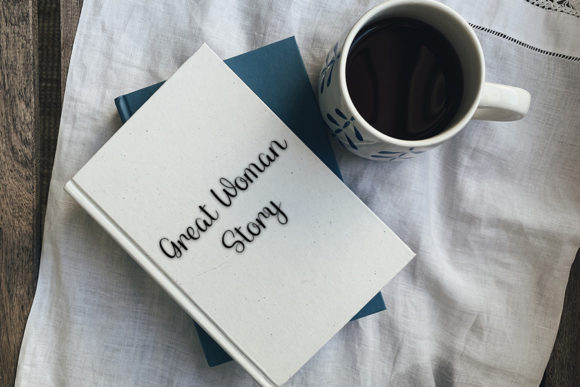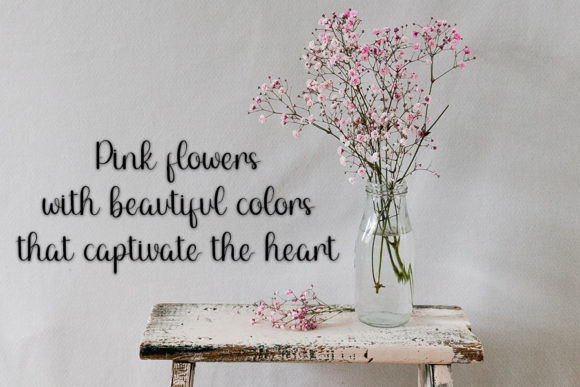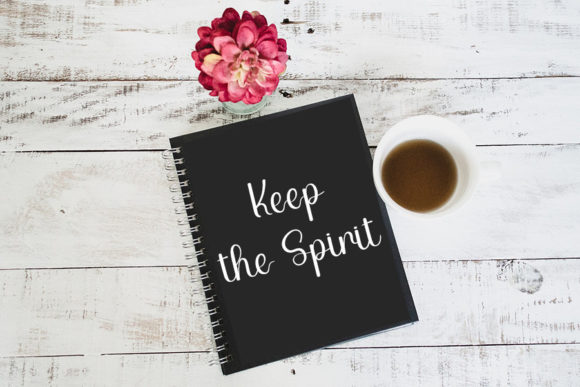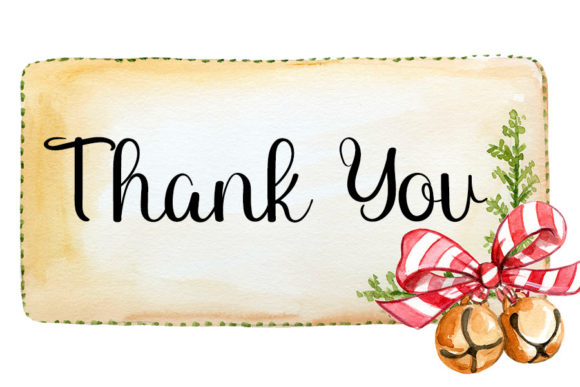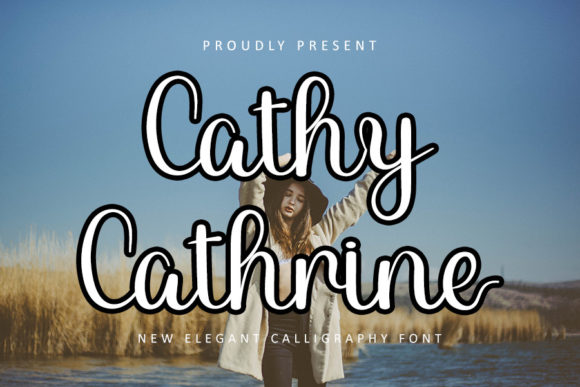
Cathy Catherine Font: Elevate Your Designs with Elegance and Sophistication
In the world of typography, few fonts manage to capture the essence of classic calligraphy while still exuding a modern, stylish vibe. Cathy Catherine, a stunning script calligraphy font, is one such gem that has been making waves in the design community. With its smart atmosphere and impeccable form, Cathy Catherine is the perfect addition to any design project that demands elegance and sophistication.
Inspired by Timeless Calligraphy
Cathy Catherine draws its inspiration from traditional calligraphy, bringing a sense of history and classic beauty to the table. However, unlike conventional calligraphy fonts that can sometimes feel rigid or outdated, Cathy Catherine strikes a perfect balance between classic charm and contemporary flair. This font is not just a nod to the past; it’s a bridge between eras, combining the best of both worlds to create something truly unique.
Balanced and Varied: The Mark of Excellence
One of the standout features of Cathy Catherine is its balanced and varied design. The font boasts a range of characters that are meticulously crafted to ensure harmony and fluidity in any text. Whether you’re working on a branding project, a wedding invitation, or a packaging design, Cathy Catherine’s versatility shines through. Its balanced nature ensures that your text is not only readable but also visually appealing, making it a joy to read and behold.
Enhance Your Projects with Cathy Catherine
So, what makes Cathy Catherine the go-to font for designers and crafters? The answer lies in its ability to elevate any project with its stylish and sophisticated presence. Here are a few ways you can use Cathy Catherine to take your designs to the next level:
- Branding and Logos: Create a lasting impression with a logo that exudes elegance and class. Cathy Catherine’s unique style ensures that your brand stands out from the crowd.
- Wedding and Event Invitations: Add a touch of sophistication to your wedding or event invitations. The font’s classic yet modern appeal makes it perfect for special occasions.
- Packaging Design: Make your product packaging shine with Cathy Catherine. Its stylish appearance can transform ordinary packaging into a memorable unboxing experience.
- Digital and Print Media: Whether you’re working on a magazine, brochure, or website, Cathy Catherine can add a level of refinement and professionalism that’s hard to achieve with standard fonts.
Why Designers and Crafters Love Cathy Catherine
Cathy Catherine has quickly become a favorite among designers and crafters for several reasons:
- Versatility: The font’s adaptability to different design contexts makes it a valuable asset in any designer’s toolkit.
- Aesthetic Appeal: Its stylish and sophisticated look adds a touch of luxury to any project.
- Readability: Despite its elegant nature, Cathy Catherine remains highly readable, making it suitable for both headings and body text.
Cathy Catherine is more than just a font; it’s a design statement. With its stylish script calligraphy, smart atmosphere, and impeccable form, it brings a level of sophistication and elegance that’s hard to find elsewhere. Whether you’re a professional designer or a crafter looking to add a personal touch to your projects, Cathy Catherine is an excellent choice. Its versatility, aesthetic appeal, and readability make it a valuable addition to any design project. So, why settle for ordinary when you can elevate your designs with the elegance and sophistication of Cathy Catherine?